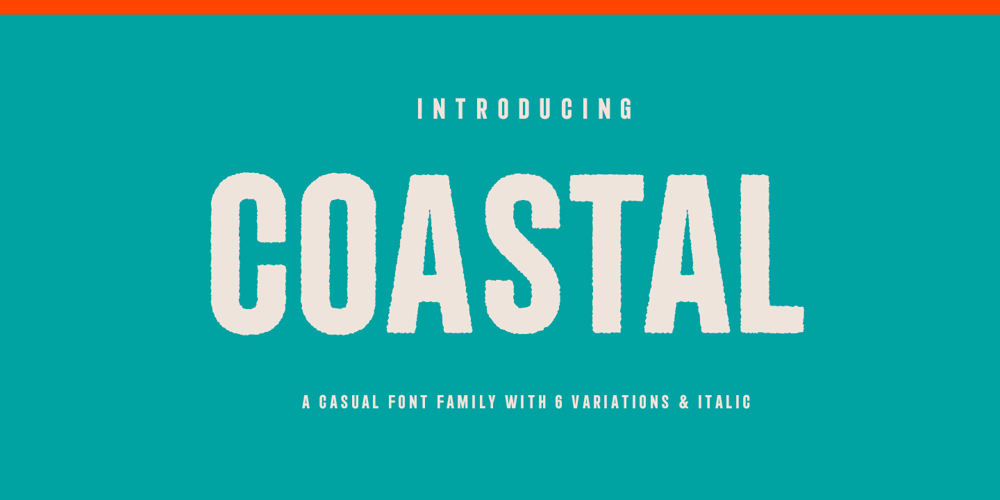
Coastal Font Family was designed by Andrew Footit and published by Arkitype. Coastal contains 12 styles and family package options. Coastal is a typeface made up of 12 fonts, it is a display sans family with some cues that give it a fun looking and informal type family. Coastal has rounded, rough, hand and outline versions so there are a lot of options to play around and have some fun with. Coastal is great for headlines, posters and artwork where larger type is needed. It also has some neat alternate glyphs that give the user a few more additional options to get creative with.